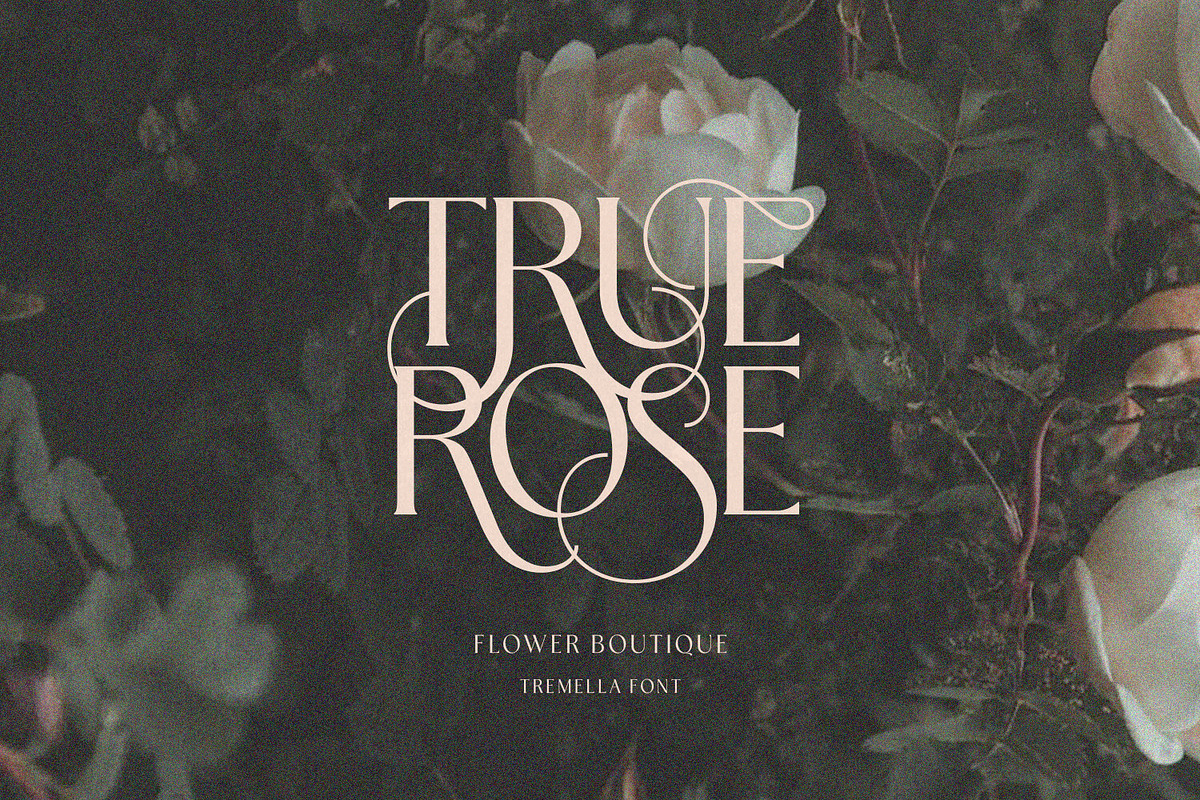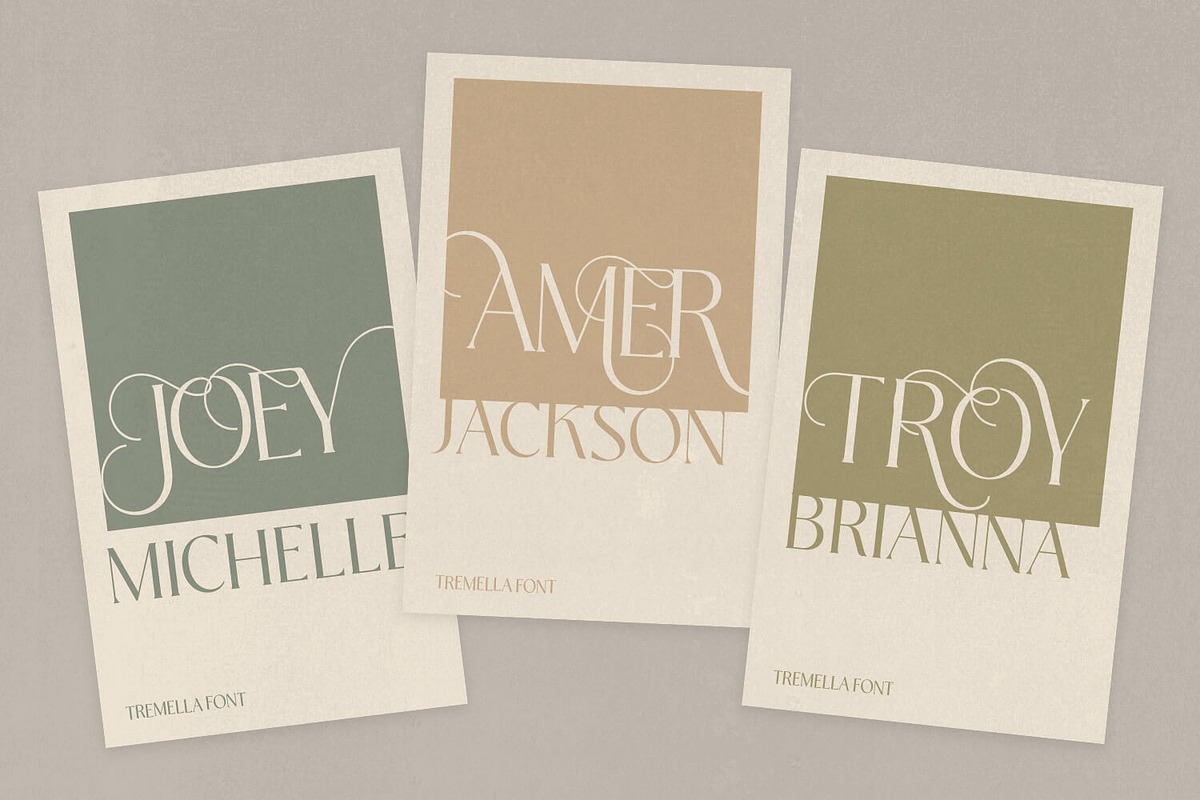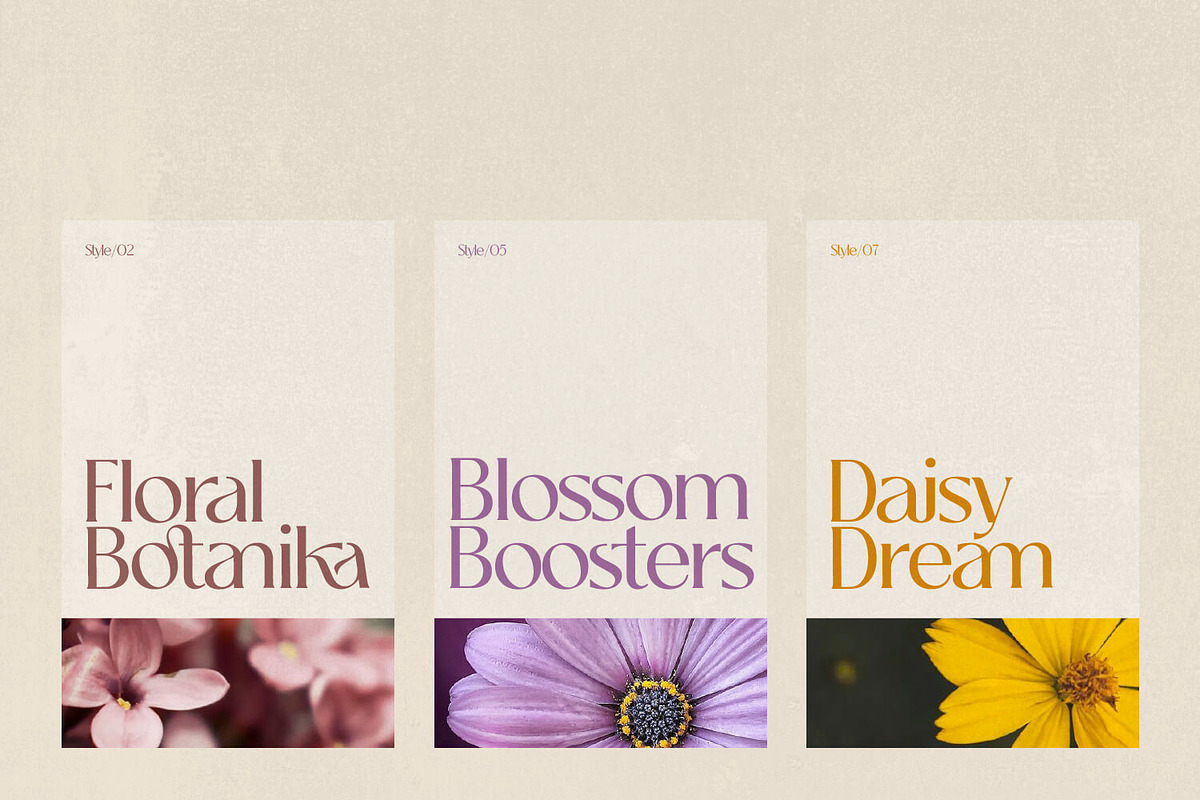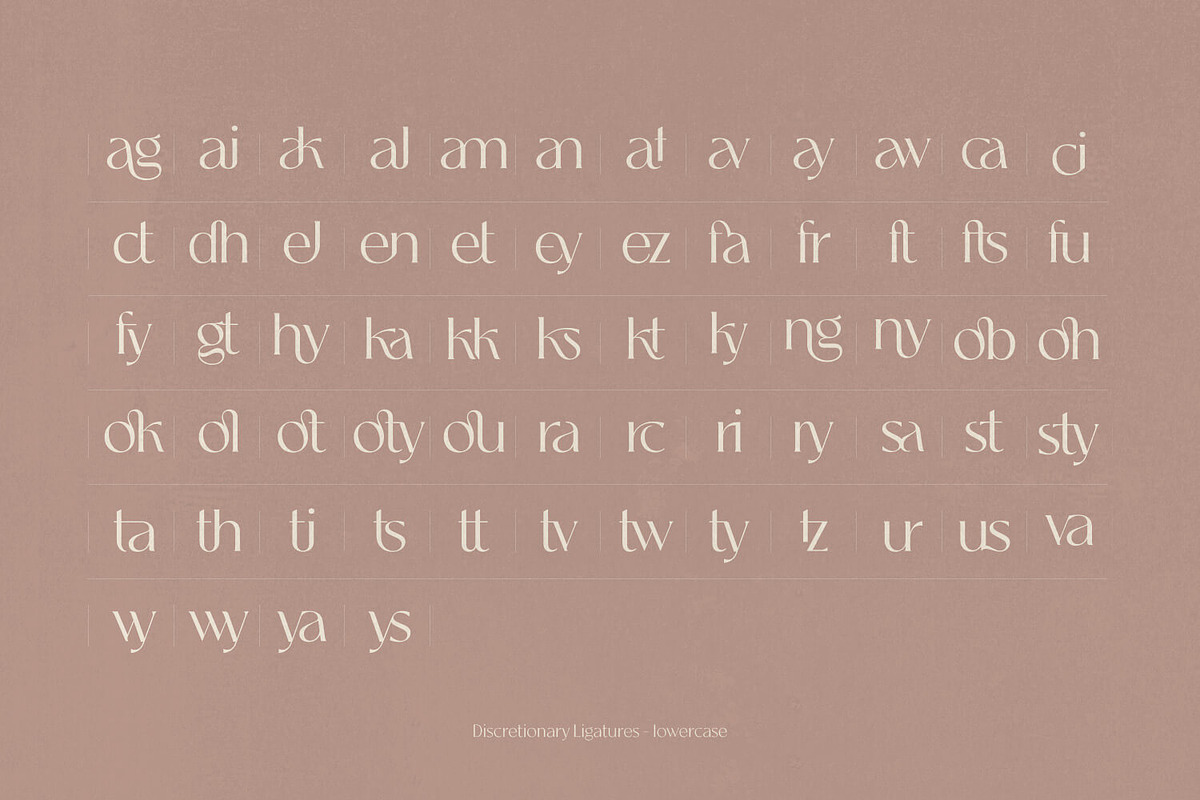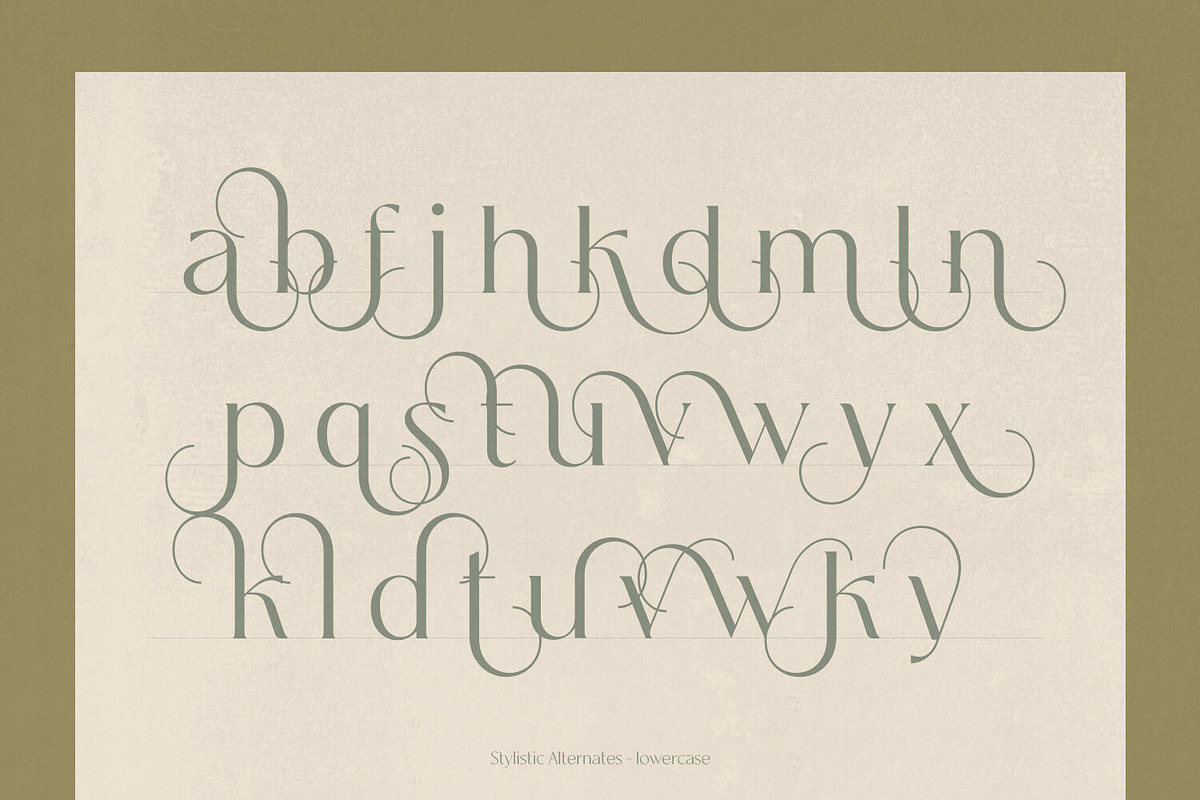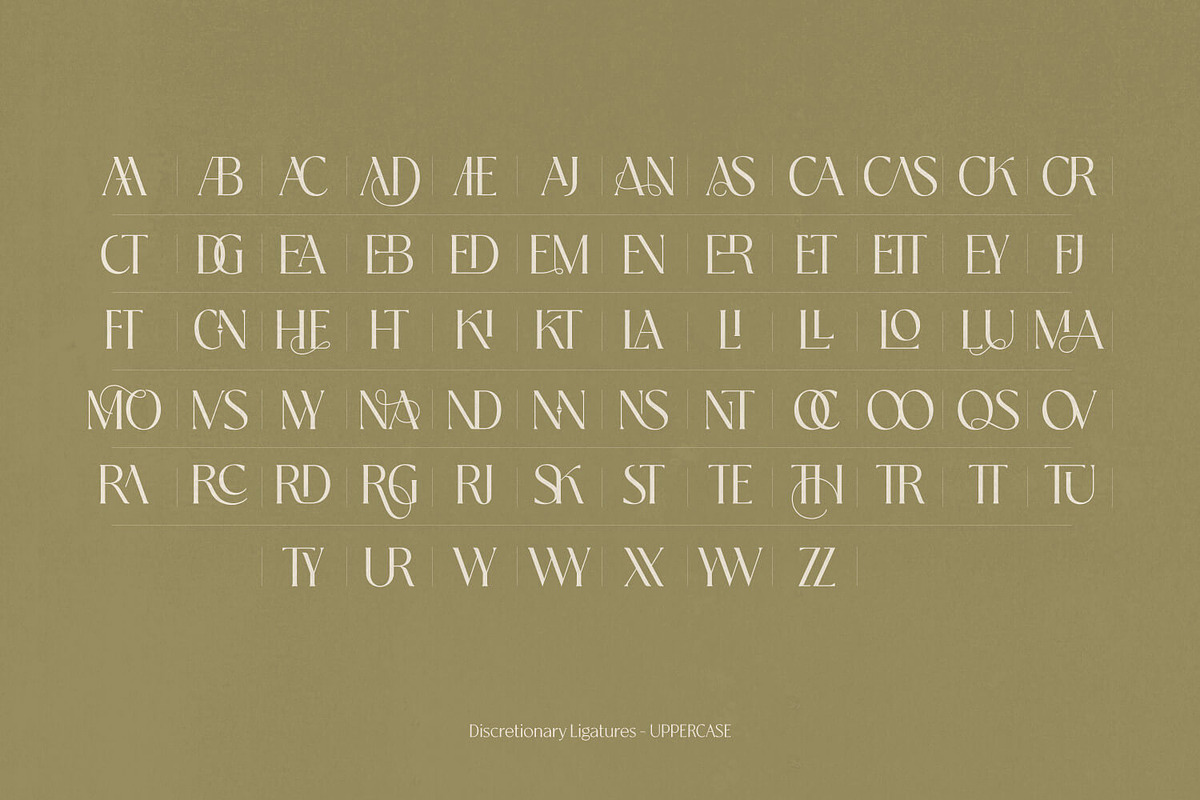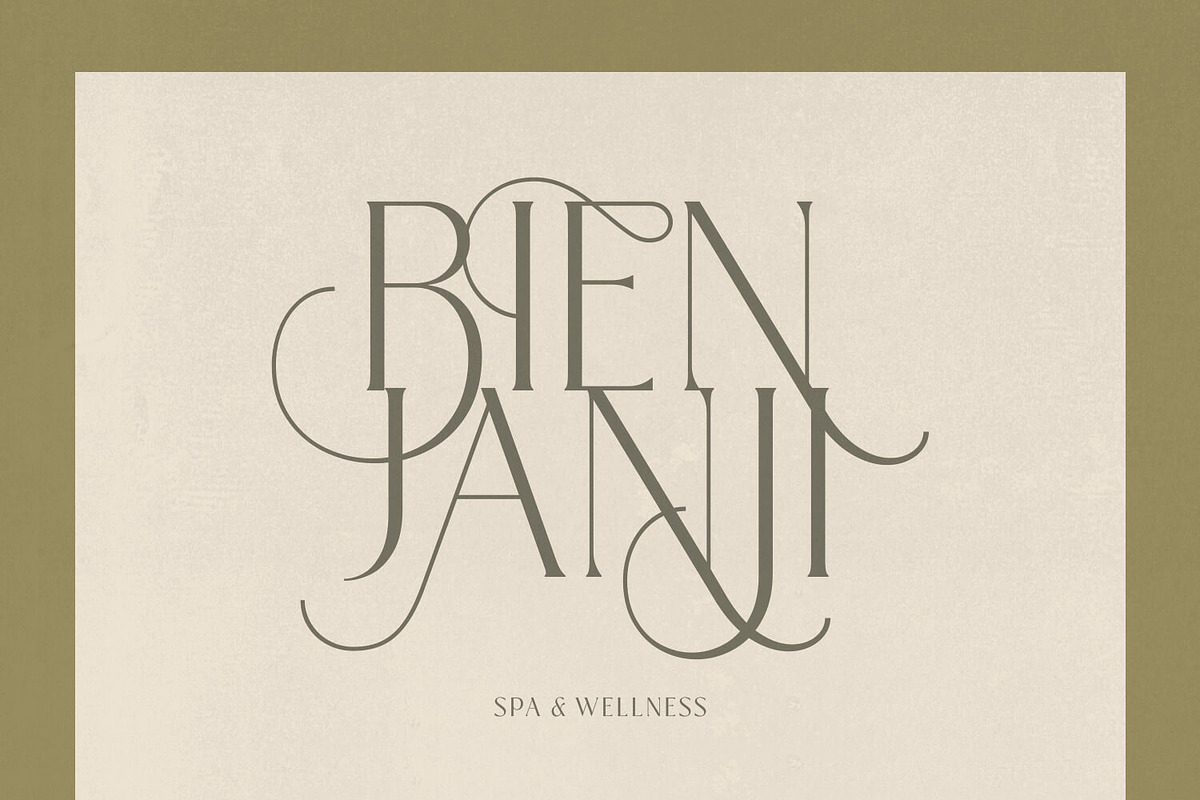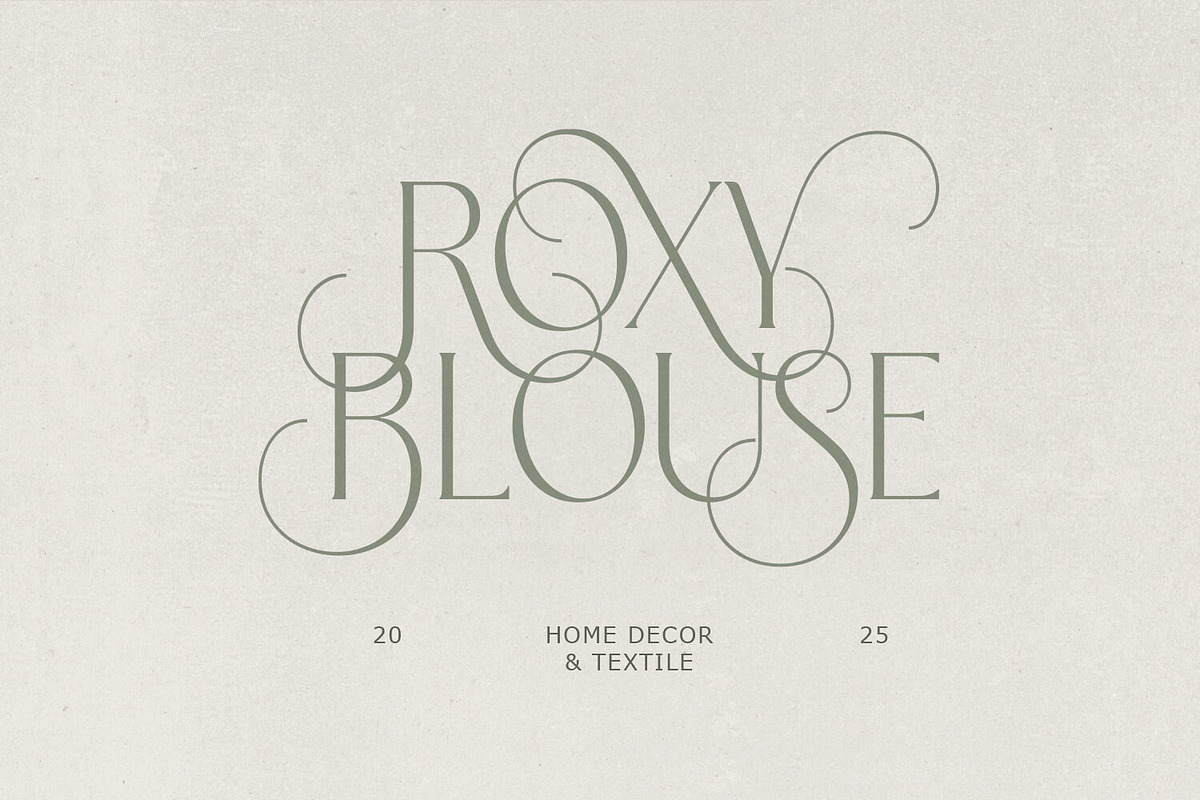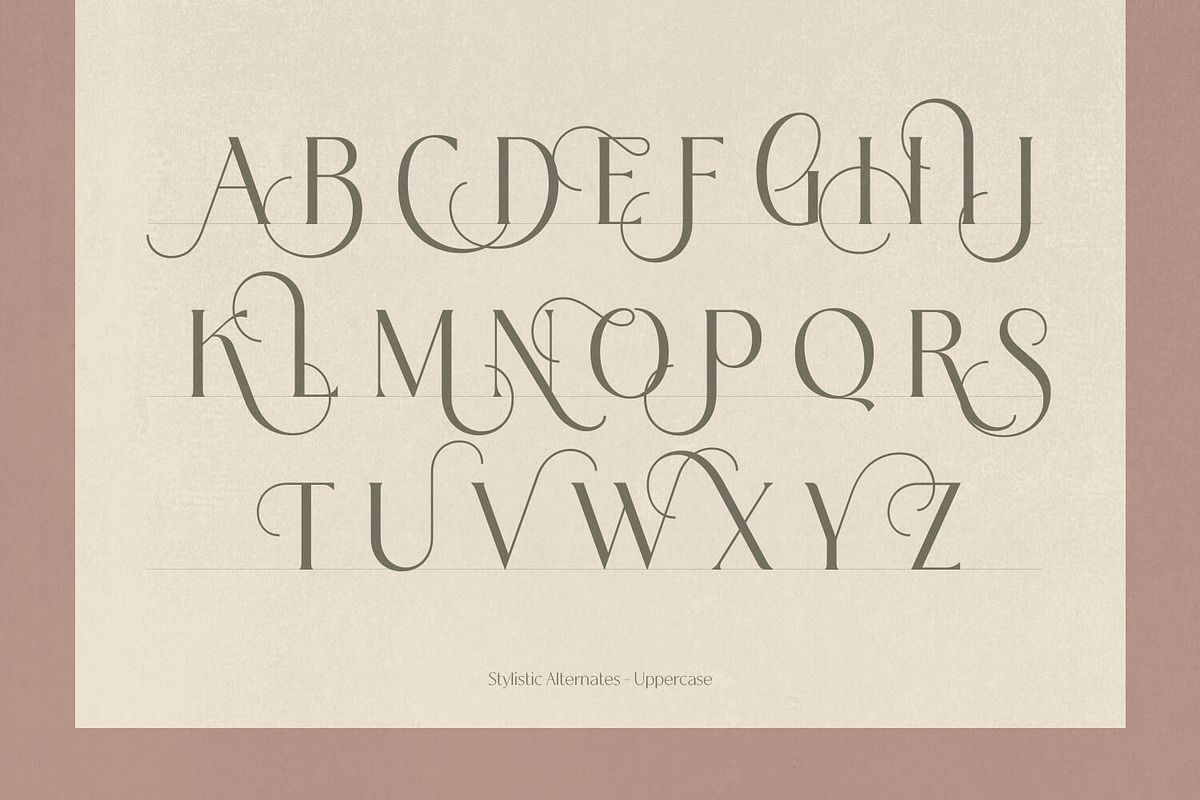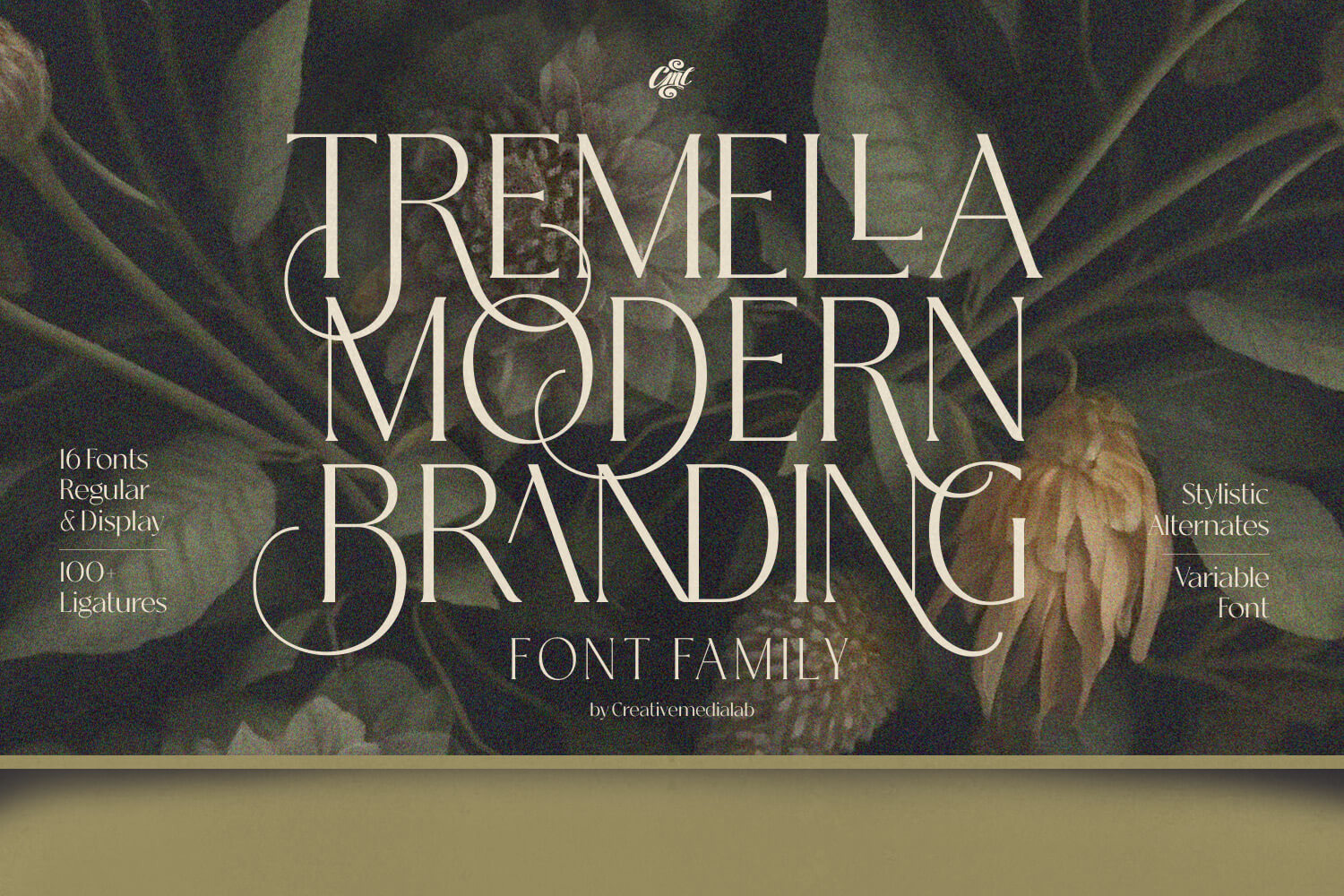
Tremella - Modern Branding Font
Tremella - Modern Serif Font
a serif font with a modern twist. It has a clean, simple look, but still carries that elegant charm that makes your design feel special without trying too hard.
I designed Tremella to be versatile, something you can drop into a logo, a magazine title, product packaging, or even a social media post, and it just works.
Play around with uppercase letters, insert alternates between to add a little flair and personality.
What makes Tremella fun to use is the set of 100+ ligatures included. They give your text a natural flow and make every word look a bit more custom. It’s one of those fonts that feels polished but still flexible, so you can go minimal, classy, or even playful depending on how you style it.
If you’re working on a brand, a stylish logo, or just want your typography to stand out, Tremella is a solid choice that won’t let you down.